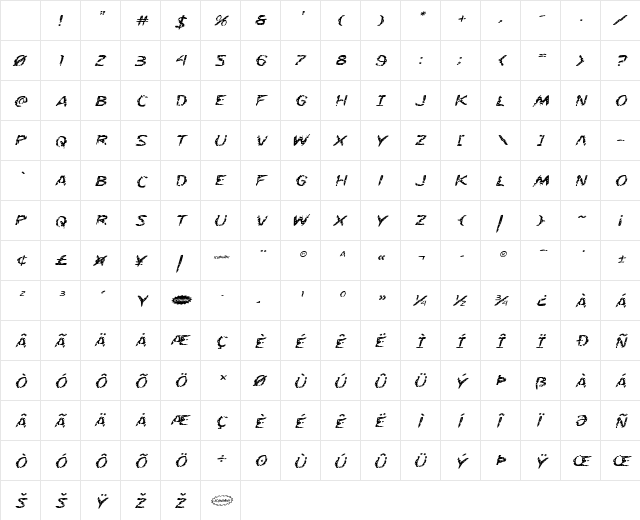
Complete Flesh-Eating Comic Expanded Italic glyph index. Displaying only characters natively supported by Flesh-Eating Comic Expanded Italic font.
Flesh-Eating Comic Expanded Italic has an approachable, lighthearted character - its loose, expressive forms are well-suited to children's content, casual branding, and fun-first design. The slanted form adds forward momentum and visual energy.
Font Pairing: Pairs well with a rounded or humanist sans for body copy, maintaining the friendly tone without relying on Flesh-Eating Comic Expanded Italic to carry extended reading.
Pro Tip: Use Flesh-Eating Comic Expanded Italic at larger display sizes where its expressive character can land. Pair with a clean, simple sans for body copy to maintain readability.